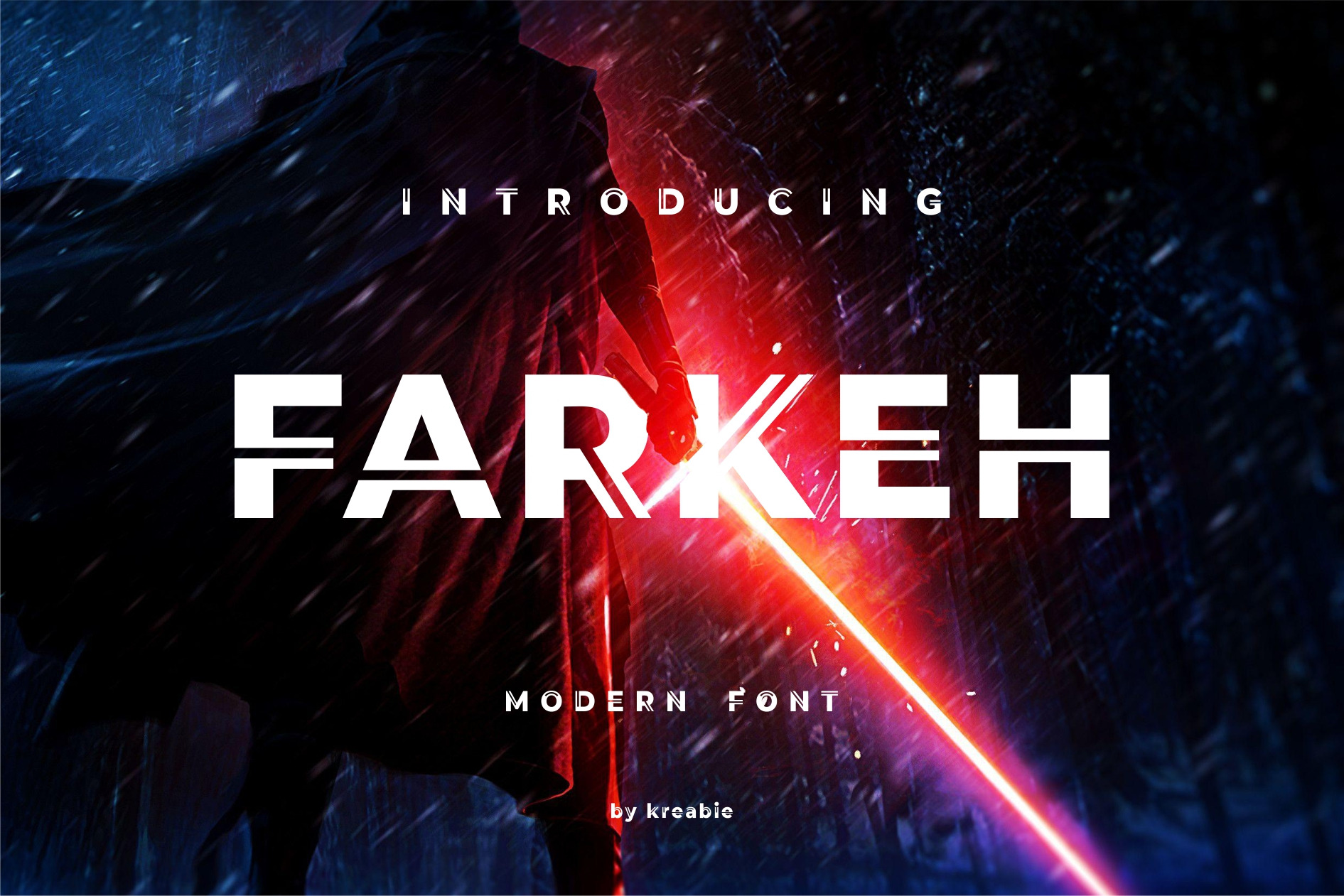
FARKEH FONT
FARKEH Its unique and strong light style makes it stand out from other fonts, making it perfect for anyone who wants to make a statement.,The font is suitable to use for many occasion such as game, fashion, science music, movie title, brand, technology, space and many more.